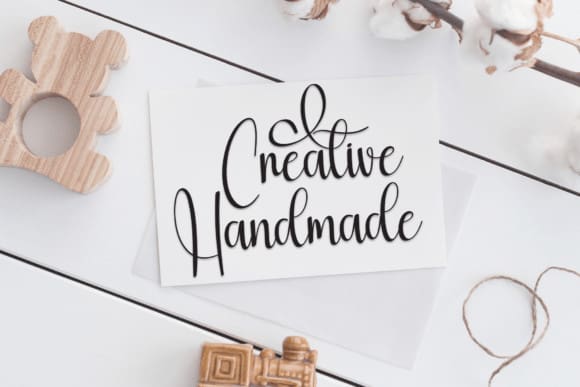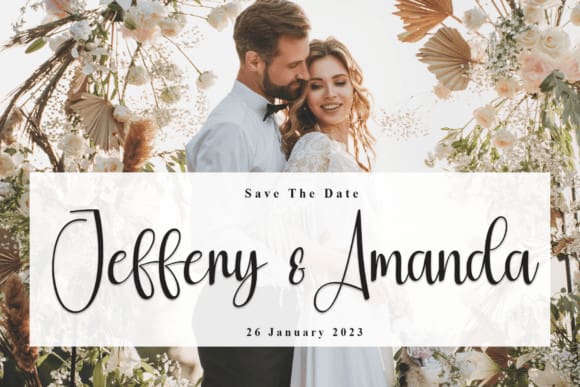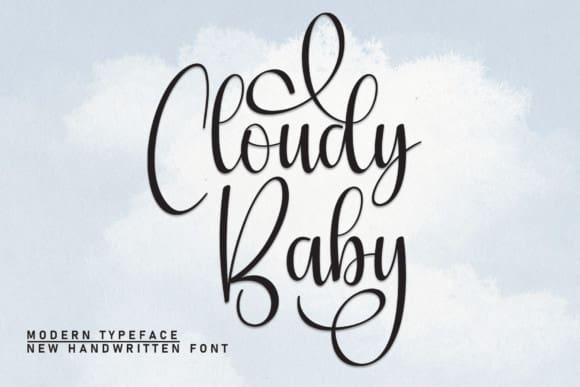
Cloudy Baby Font
Cloudy Baby Font is a charming handwritten font imbued with a sense of freshness and casual elegance. Its fluid strokes and organic lines evoke a laid-back vibe, making it perfect for various design projects. Whether used for branding, invitations, or social media graphics, Cloudy Baby adds a touch of warmth and personality.